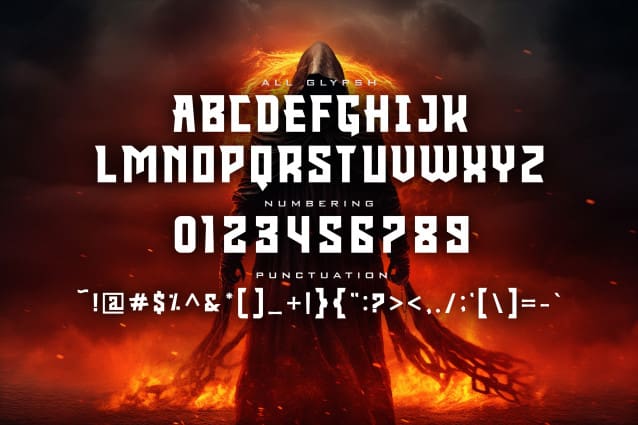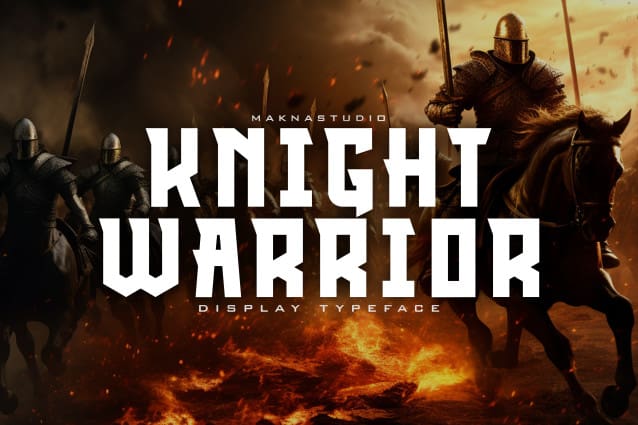
Knight Warrior Font
Knight Warrior Font is a strong and powerful font with sharp corner style. It is a combination of thick, pierce edged, and intense styles that make it stand out more. KNIGHTWARRIOR fonts are suitable for creating logos, titles, posters, or banners for video games, movies, and Books.